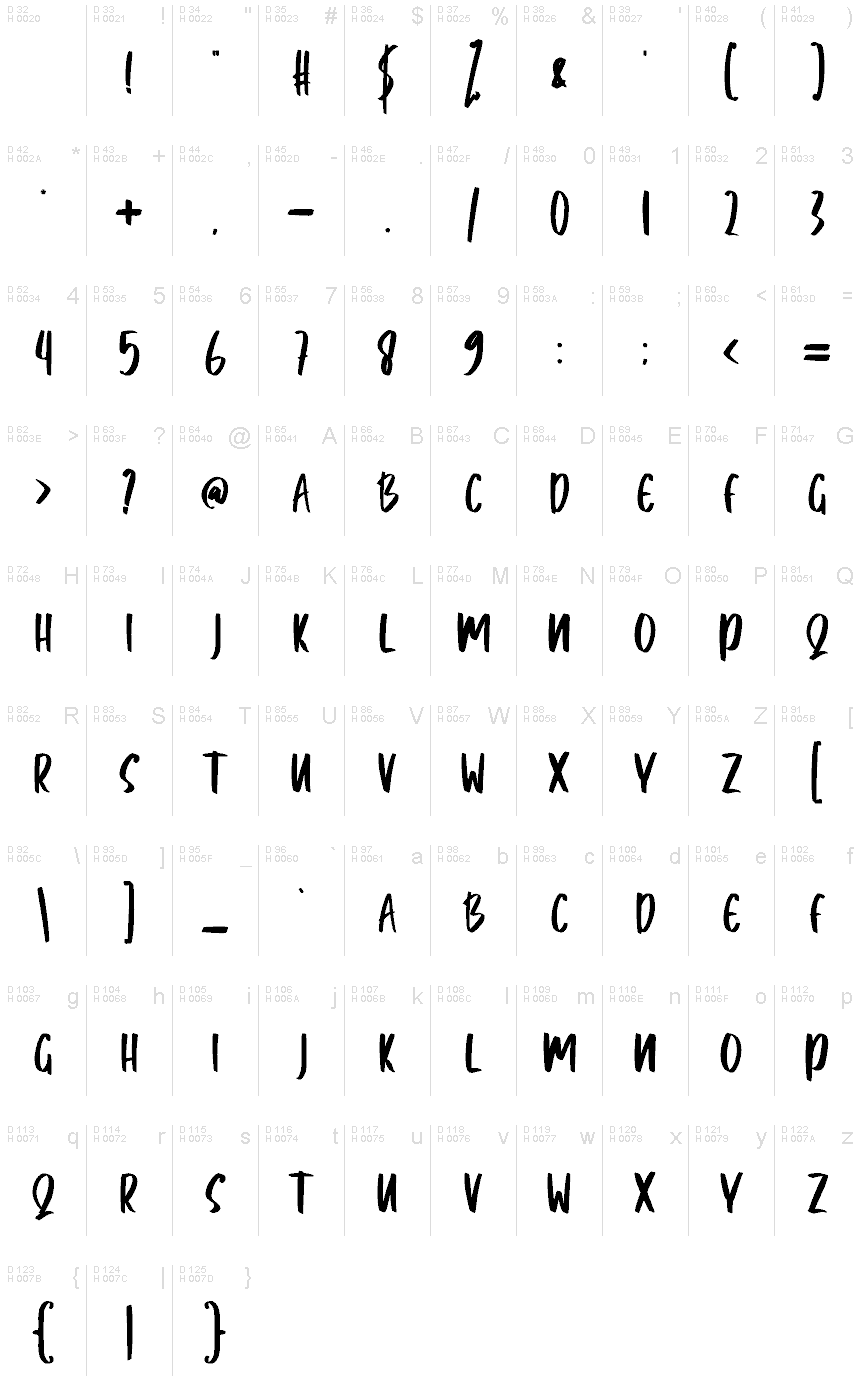
Abraly
Abraly font, created by Skiiller Studio, is a handwritten condensed font with a textured and brush-like appearance. With its expressive, bold character and artistic touch, it channels mid-20th-century advertising styles or sign painting traditions. The casual yet stylish feel makes it an excellent choice for creative projects that require a personal touch.
This free handwritten font is versatile in branding projects for creative industries, packaging design for artisanal products, promotional materials for events, editorial layouts, book covers, web design elements, social media graphics, posters, logos, and apparel design. Abraly seamlessly blends the modern with historical influences.